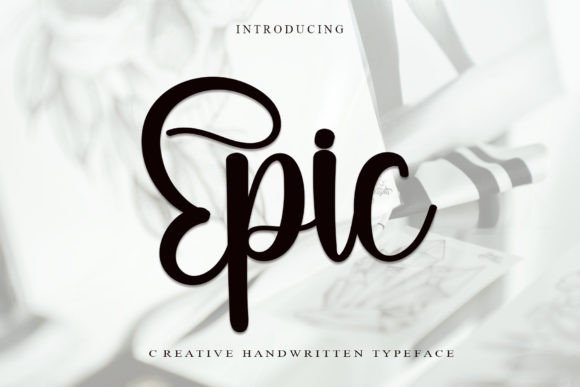
In a world clamoring for distinctive voices, the Epic Font family stands out as a symphony of elegance and charm. Sculpted with meticulous dedication by Inermedia STUDIO, each letterform in this script font dances across the screen like a playful ballerina, leaving a trail of visual enchantment.
Epic Font's graceful curves and sweeping strokes evoke a sense of warmth and approachability, inviting viewers into a world of boundless creativity. Its handwritten style lends a personal touch, reminiscent of heartfelt letters penned by a loved one, adding a captivating layer of intimacy to your designs.
Crafted with the intention to enthrall, Epic's captivating design shines brightest in projects seeking a touch of whimsy and lightheartedness. Imagine a children's storybook, its pages adorned with Epic's charming characters, leading young readers on magical adventures.
Yet, this font's versatility extends far beyond the realm of children's literature. Its playful nature blends effortlessly with the sophistication of fashion magazines, creating captivating layouts that draw readers in and leave them yearning for more. Its natural flow breathes life into branding projects, bestowing upon logos and marketing materials a disarming charm that resonates with audiences.
Epic's allure extends to the digital realm as well. Its crisp and legible letterforms render flawlessly on high-resolution screens, making it the perfect choice for modern websites, captivating social media graphics, and eye-catching video content.
Whether you seek to craft enchanting invitations, heartfelt cards, or simply inject a touch of whimsy into your digital creations, the Epic Font family stands ready to elevate your designs to new heights. Embrace its playful spirit, let your creativity soar, and allow Epic to transform your words into captivating works of art.